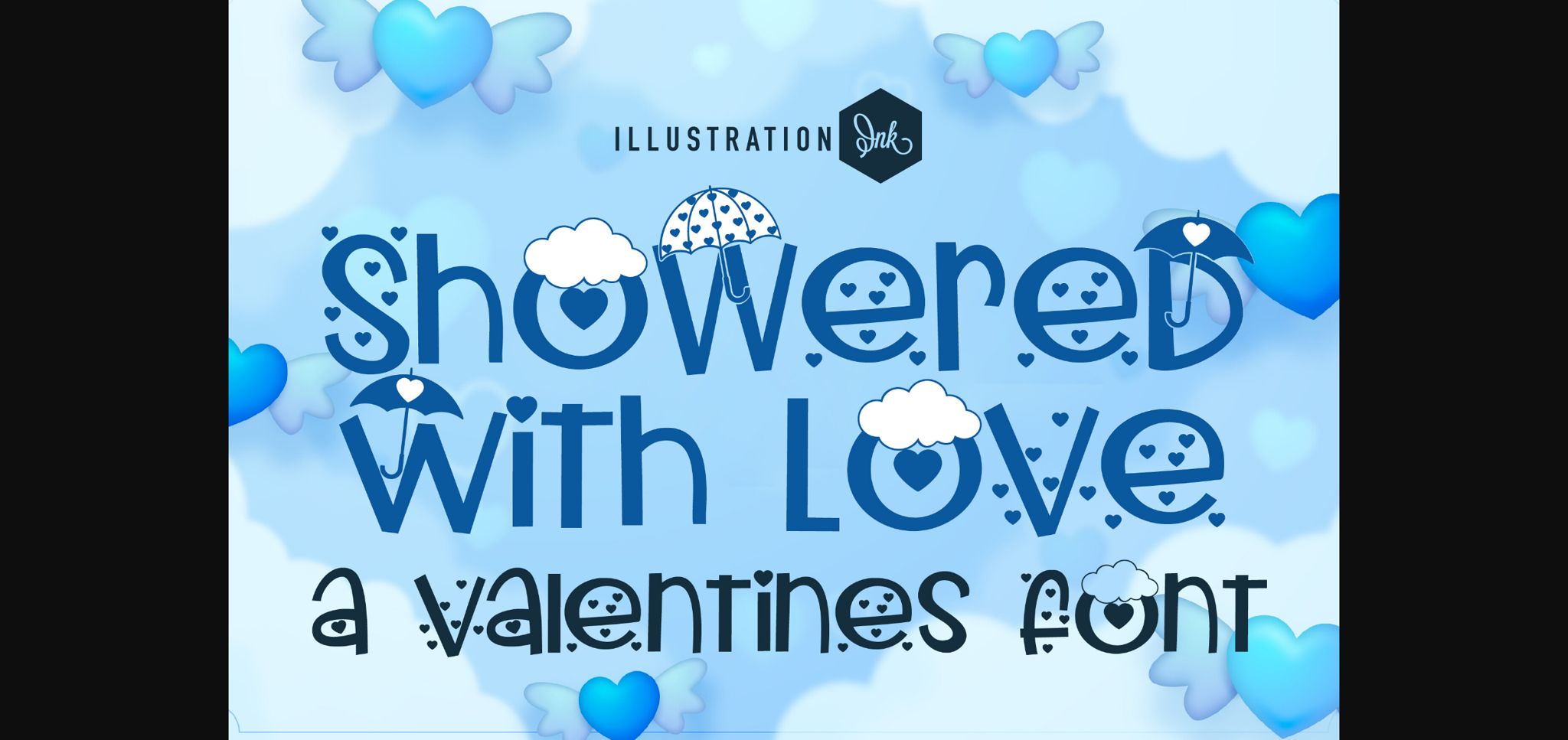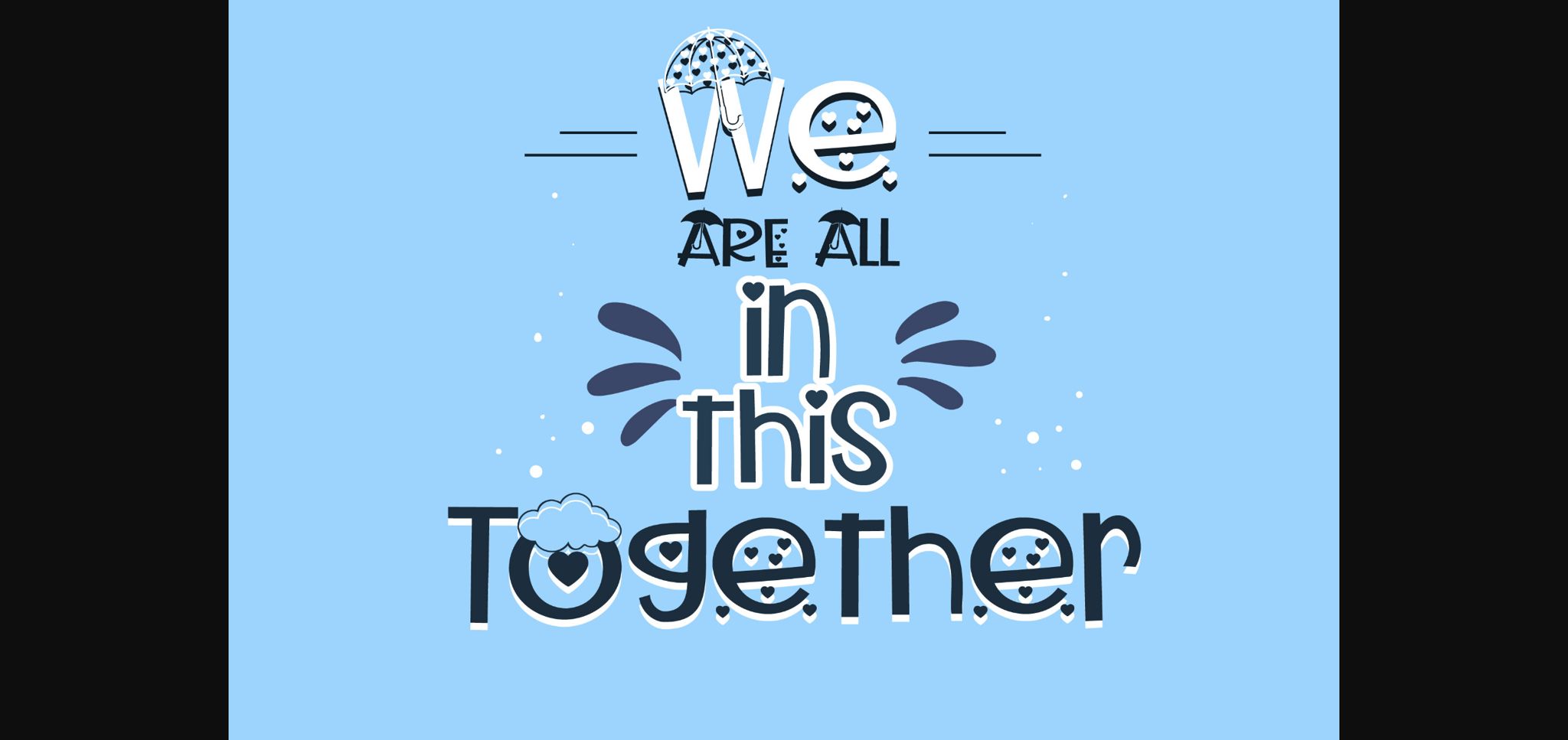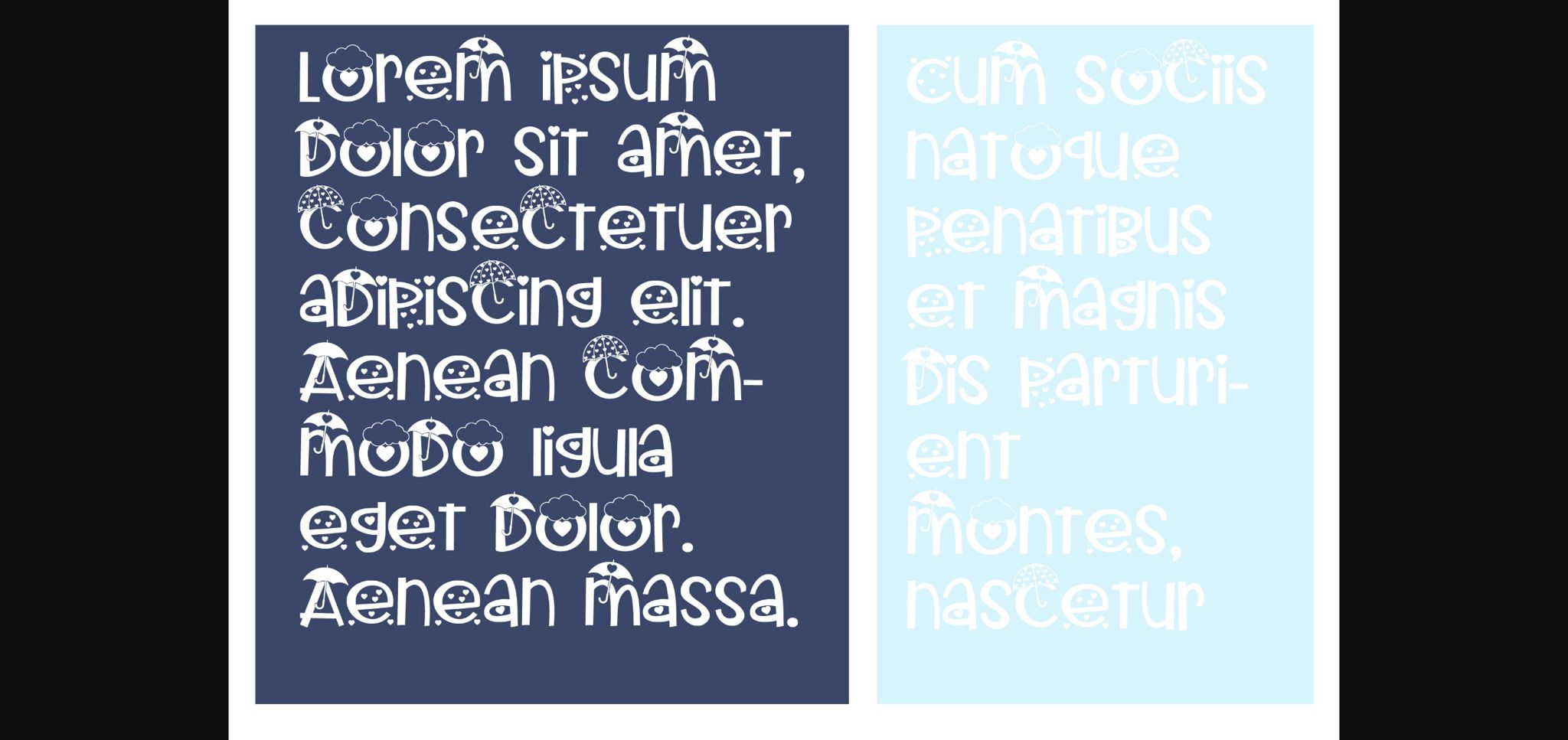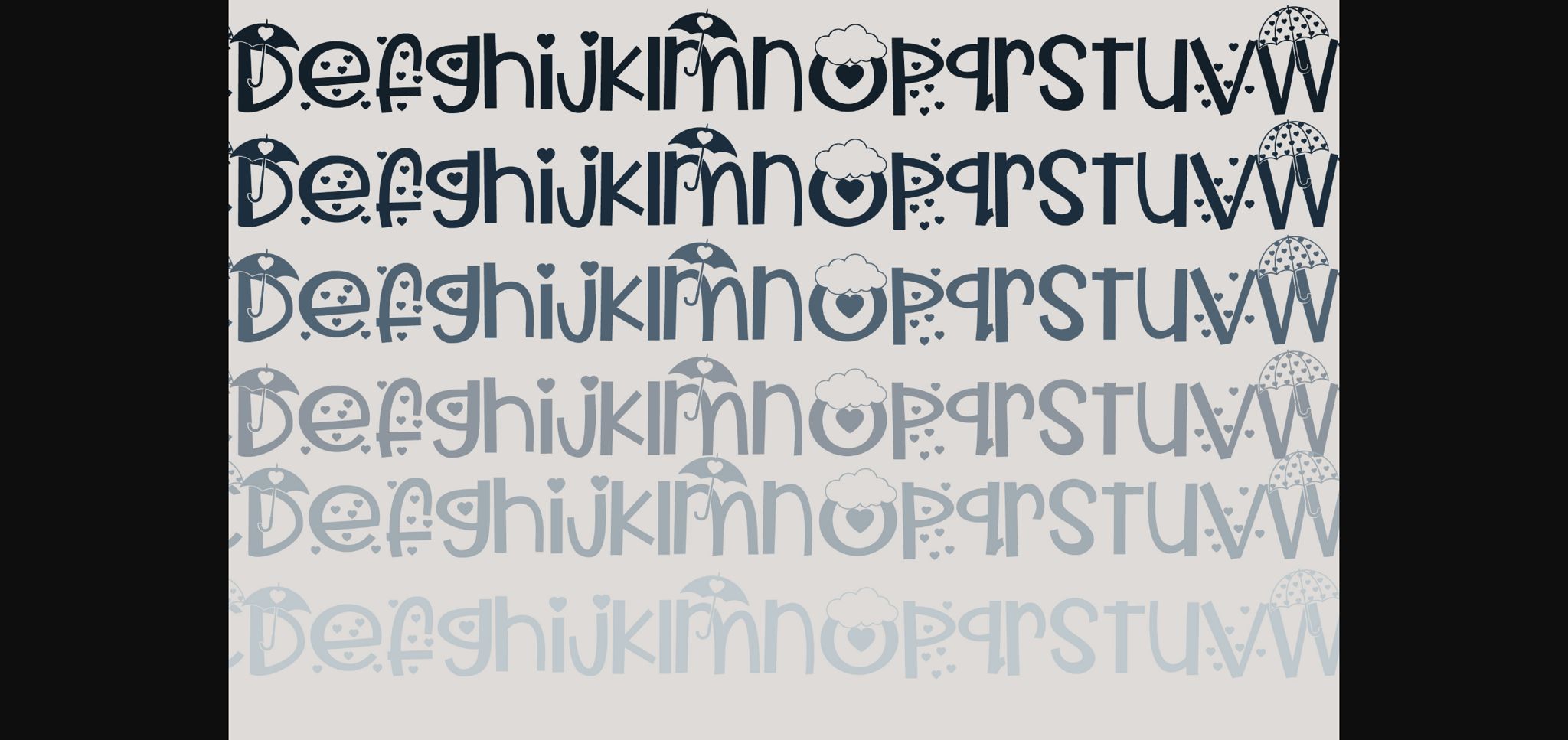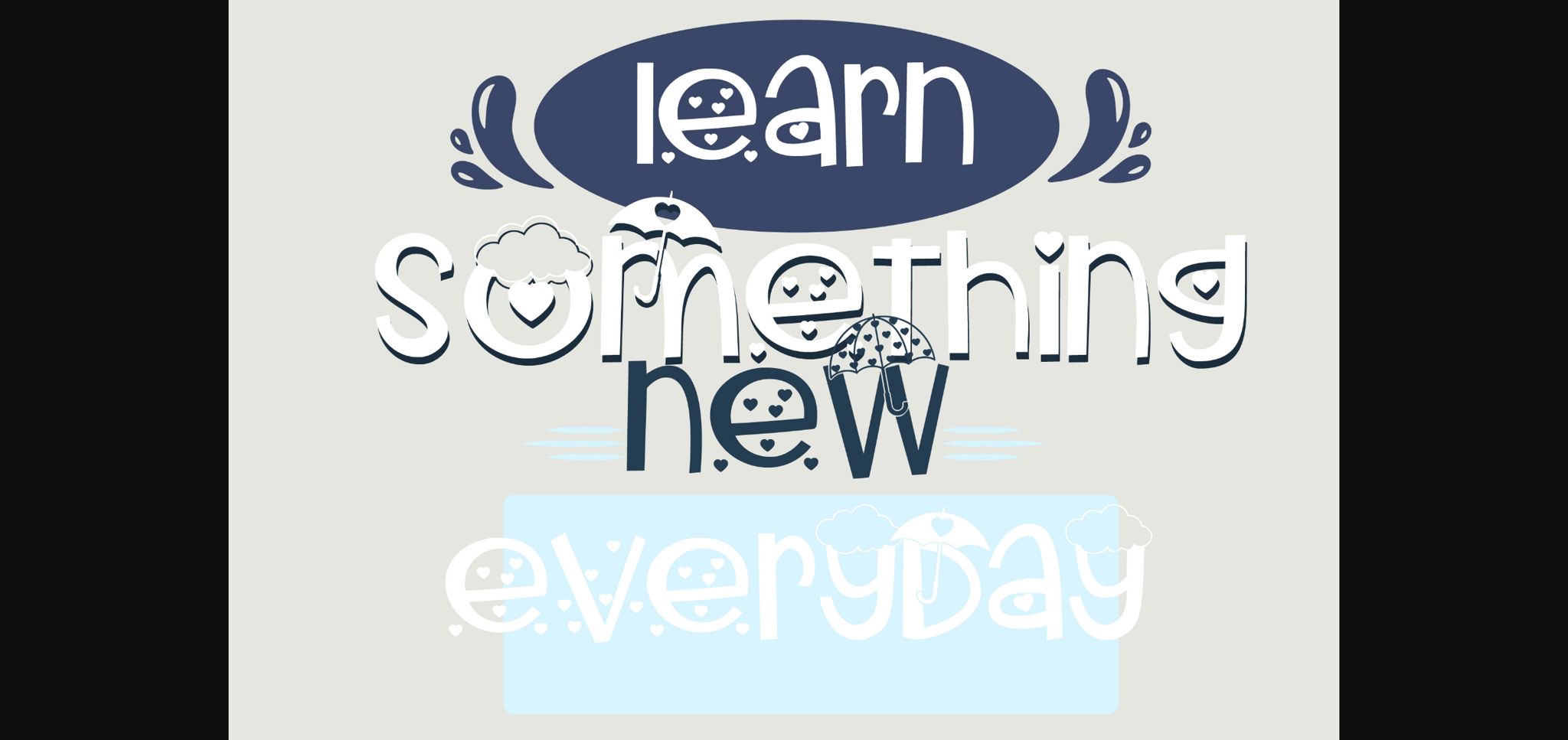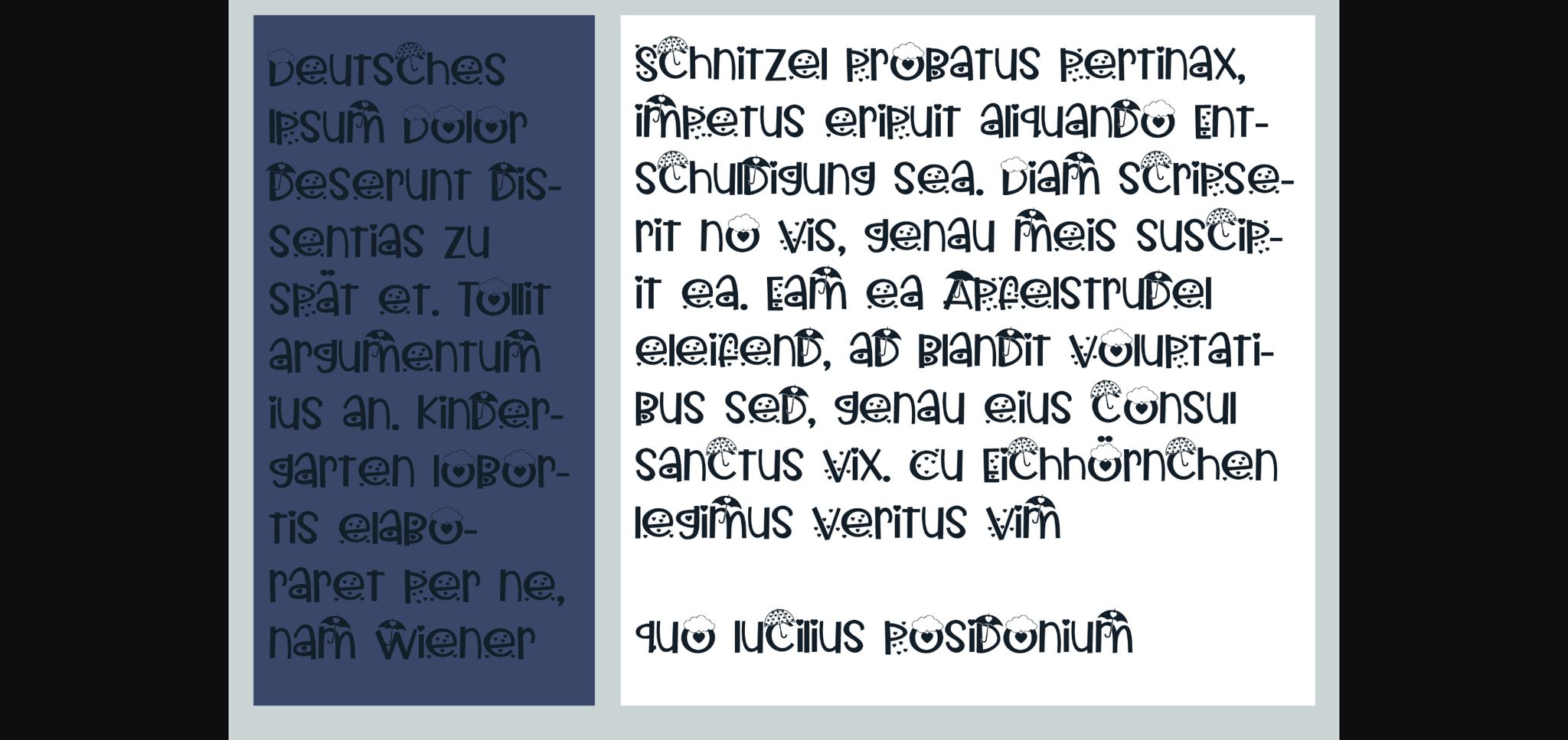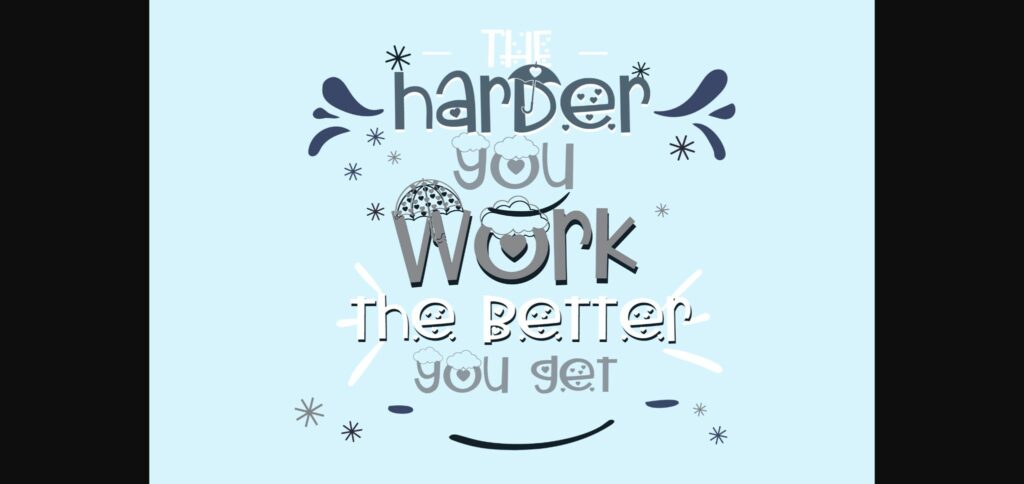
Showered with Love Font
About Showered with Love Font
This hand-crafted font is a whimsy sans serif with heart drops, umbrellas, and clouds. No matter the topic, this font will be an incredible asset to your fonts’ library, as it has the potential to elevate any creation.